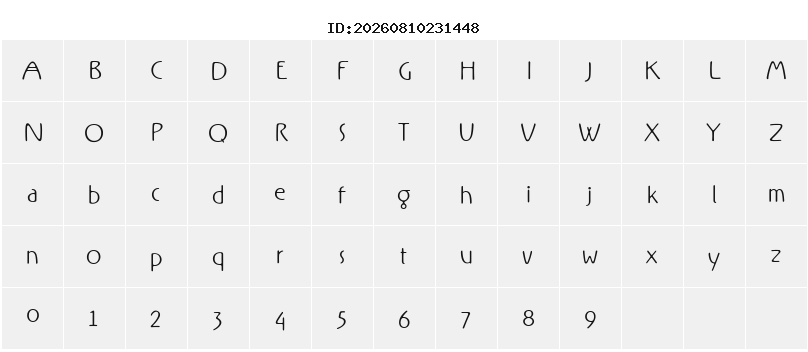
Rx-FiveZero Preview
• Font Name: Rx-FiveZero
• Full Font Name: Rx-FiveZero
• Designer: Apostrophe (')
About Rx-FiveZero.ttf
Rx-FiveZero.ttf is a modern, elegant sans-serif font designed for ultimate readability and visual harmony. Perfect for branding, headlines, web design, and print materials.